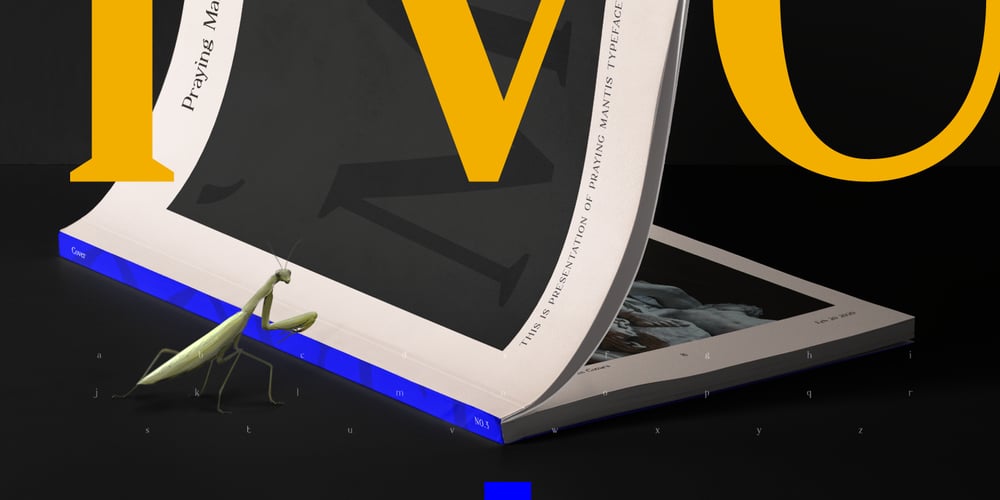
Praying Mantis Font Family was designed by Tomass Gavars and published by Tomass Gavars. Praying Mantis contains 3 styles and family package options. Praying Mantis is a typeface designed by Tomass Gavars.The design was inspired by the praying mantis insect. The shapes of the mantis head, forelegs and body are represented in each glyph.Each font consists of 226 characters – including numbers and punctuation.Praying Mantis has Latin character set support.